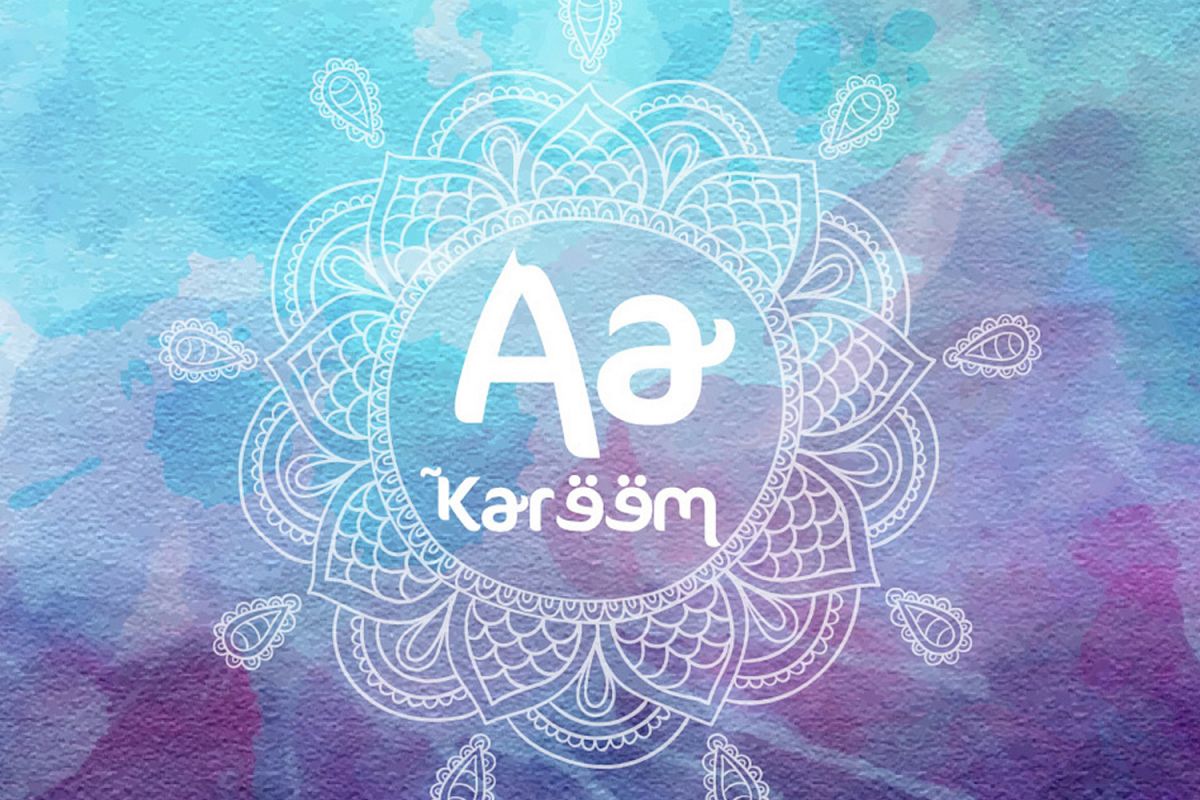
FTF Ahlan Ve Arabez PRO
FTF Ahlan Ve Arabez PRO is an interesting display font inspired by the style and feel of the Middle East Arabic. This font is suitable for branding logos, Ramadan themes, and any other projects you can think of.